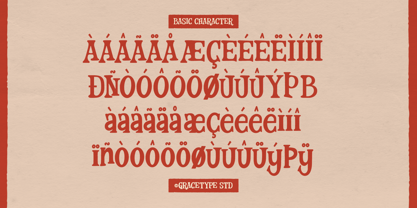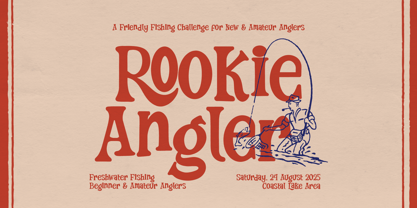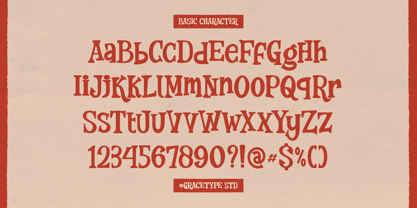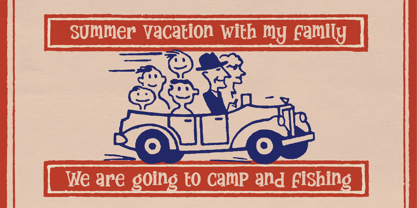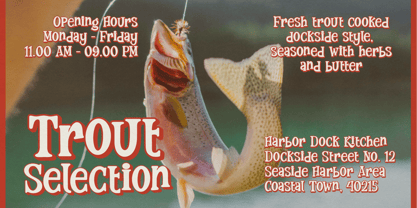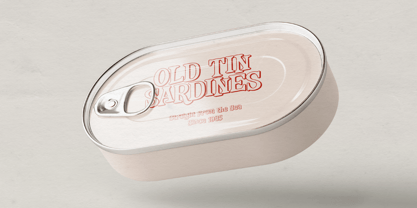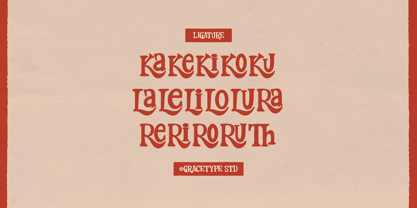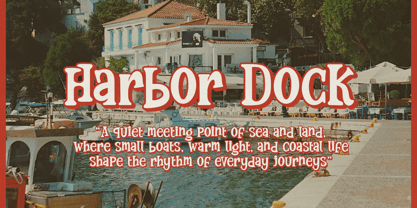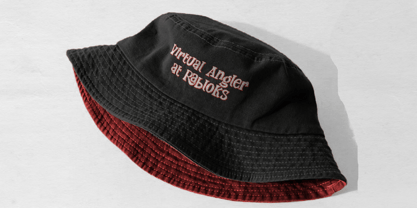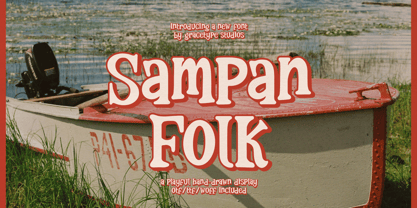
Sampan Folk
Sampan Folk | Playful Hand Drawn Display, from Gracetypestudio, suitable for any projects such as: logos, branding projects, homeware designs, product packaging, mugs, quotes, posters, shopping bags, t-shirts, book covers, name card, invitation cards, greeting cards, label, photography, watermark, special events, and all your other lovely projects that need a Hand Drawn taste.